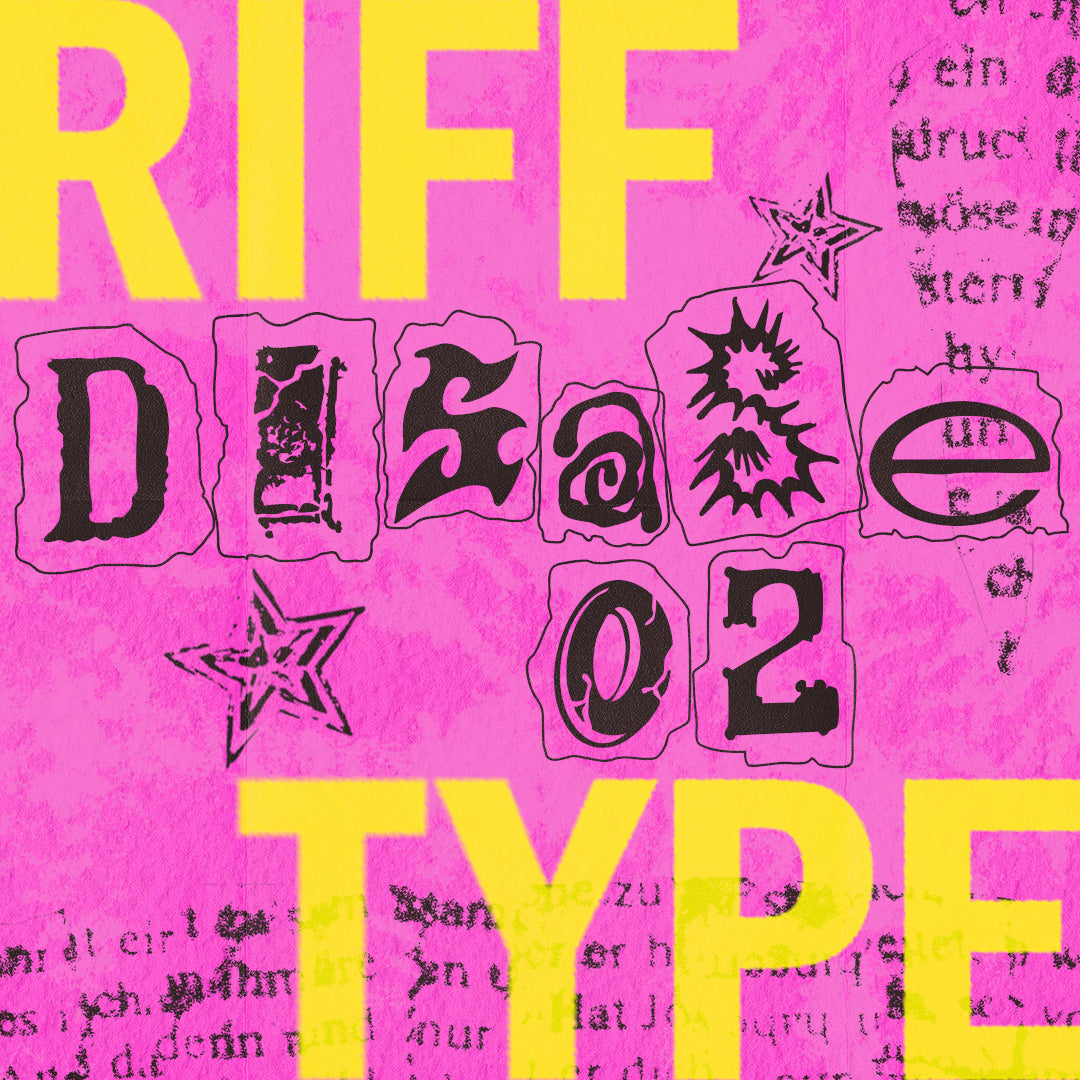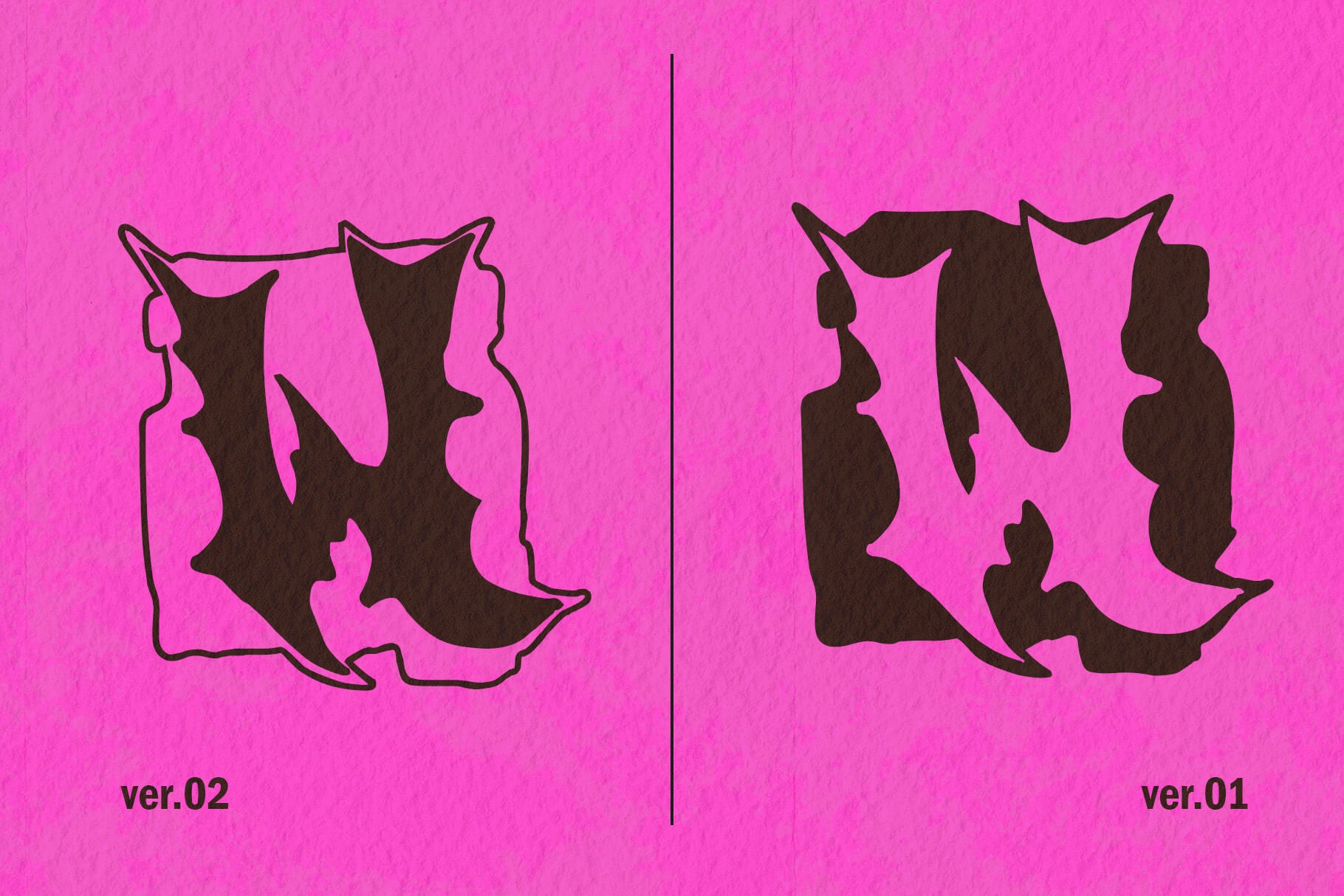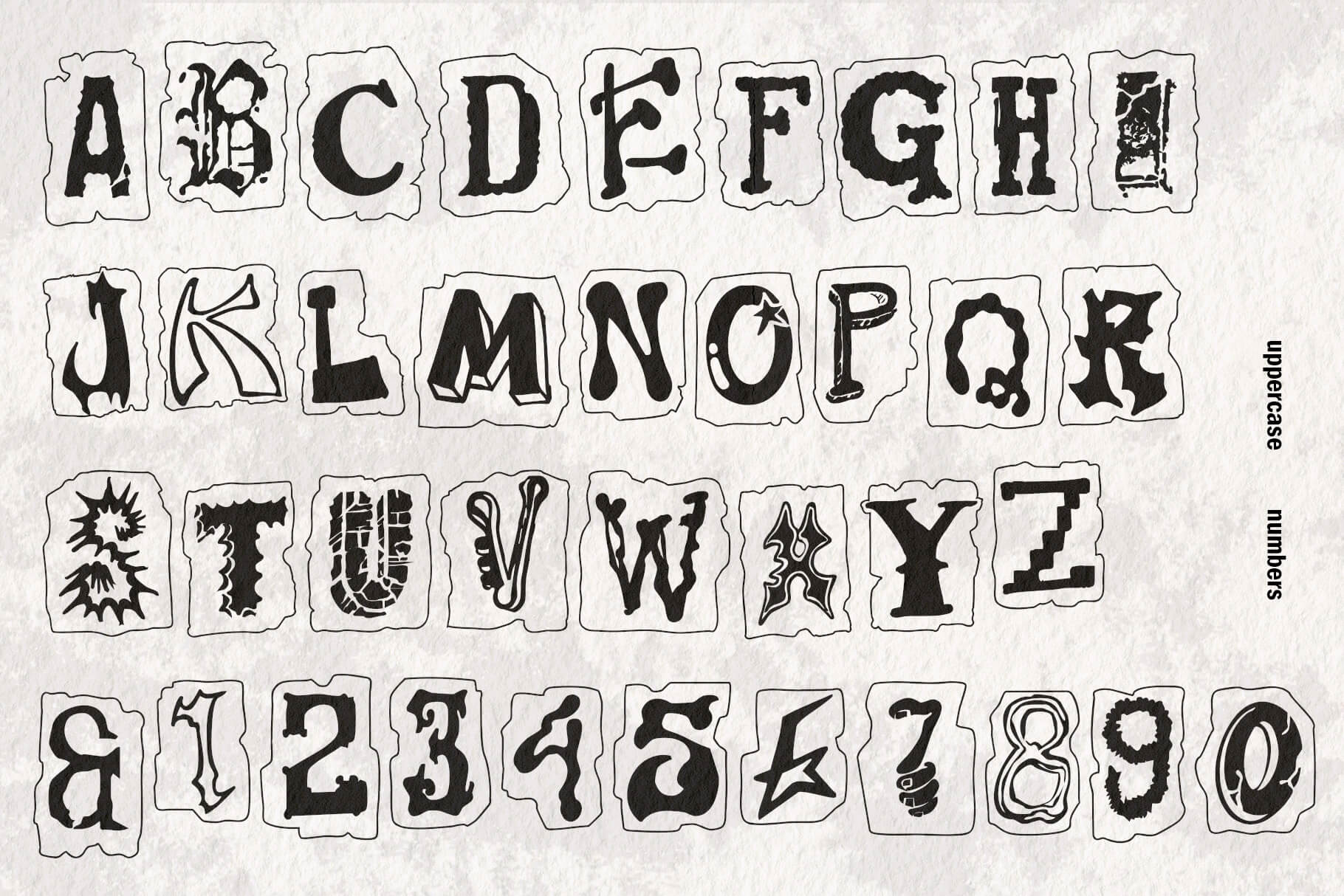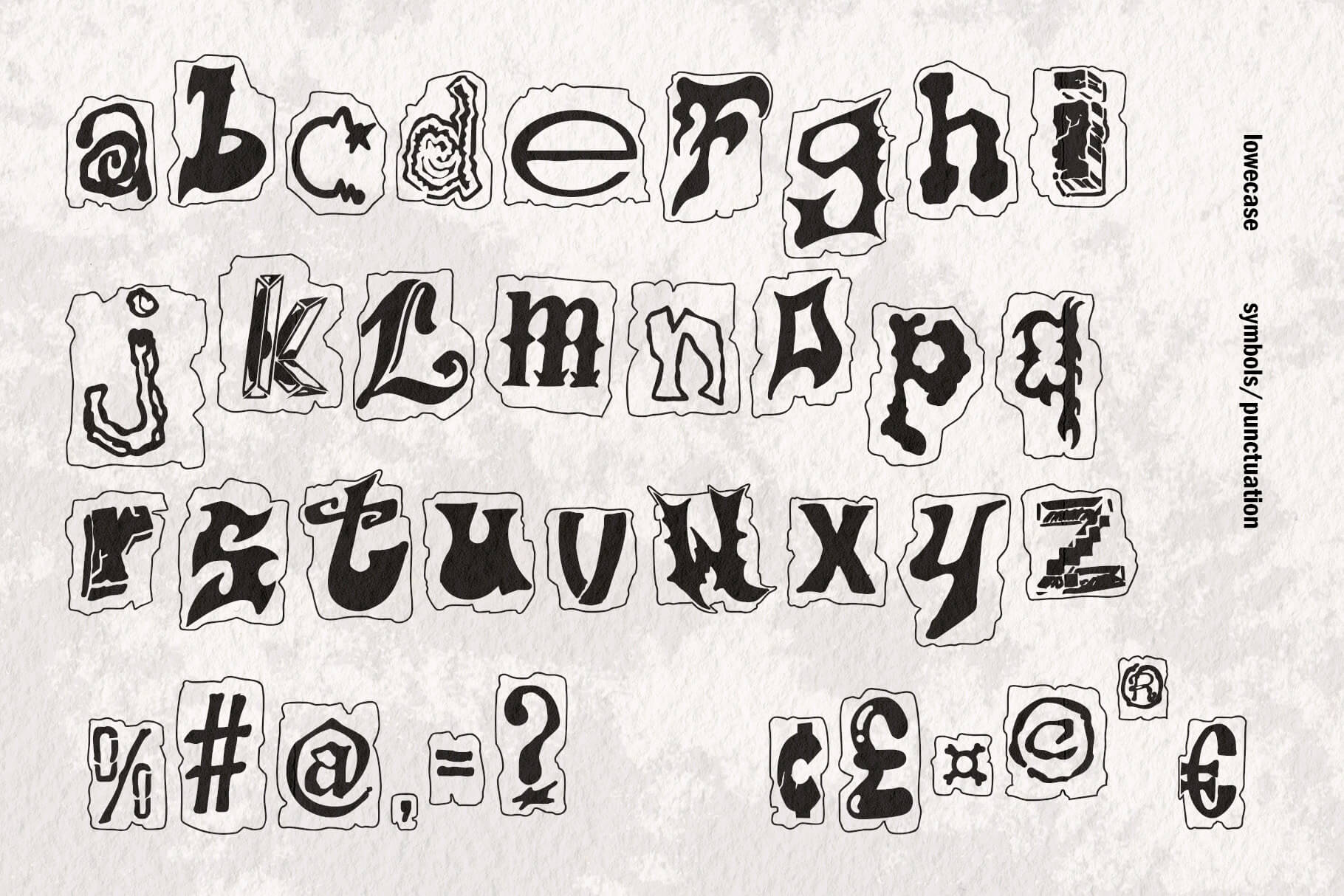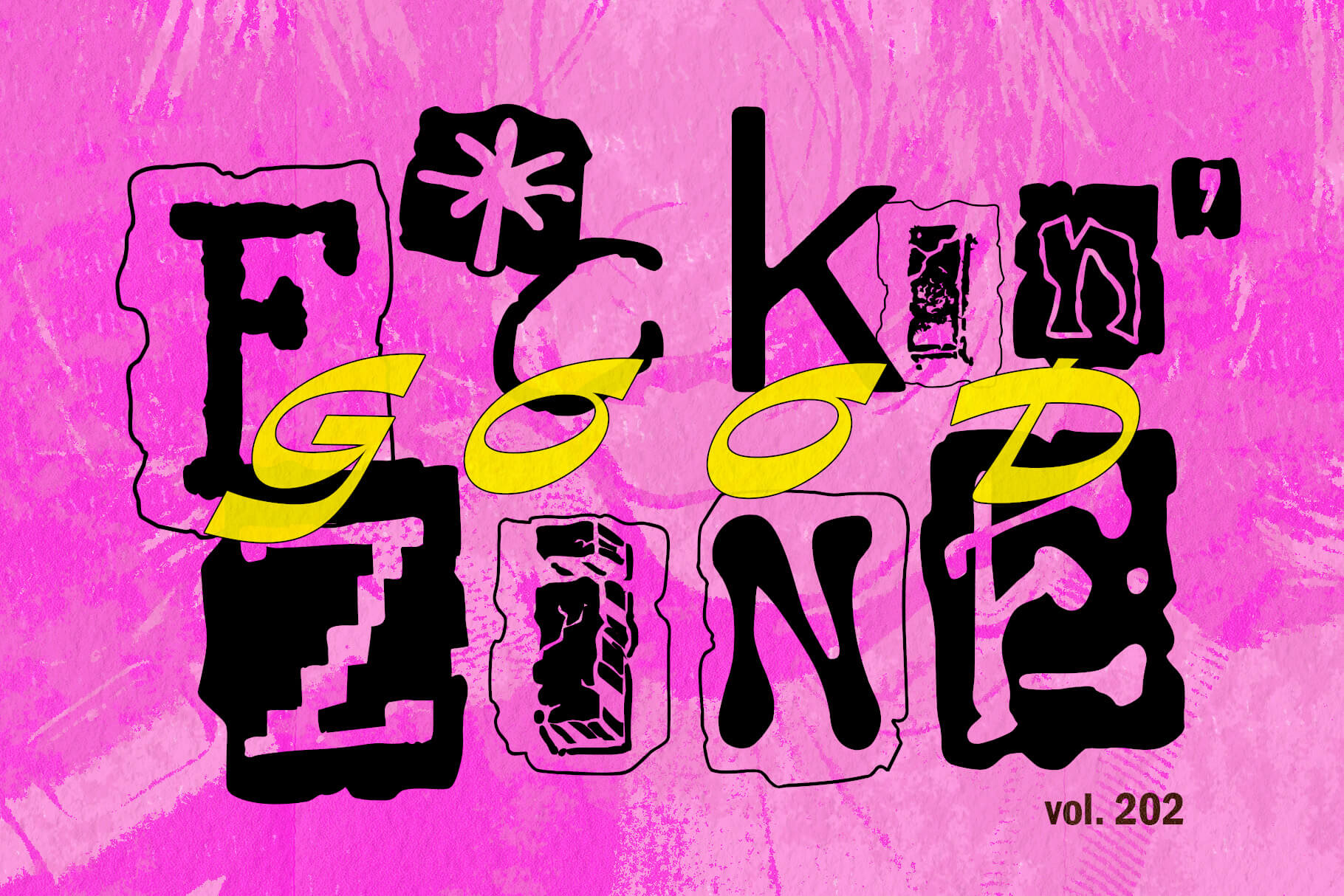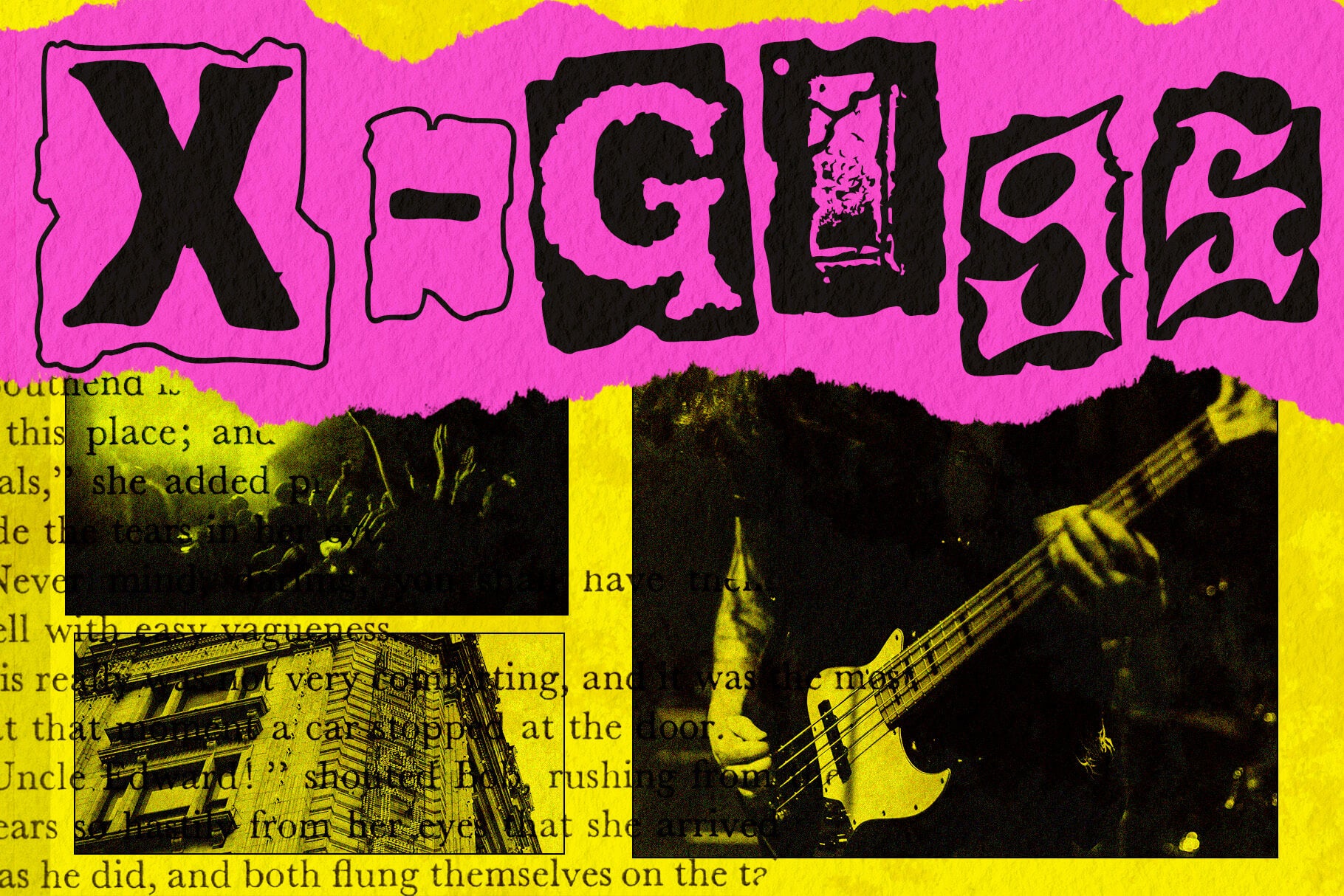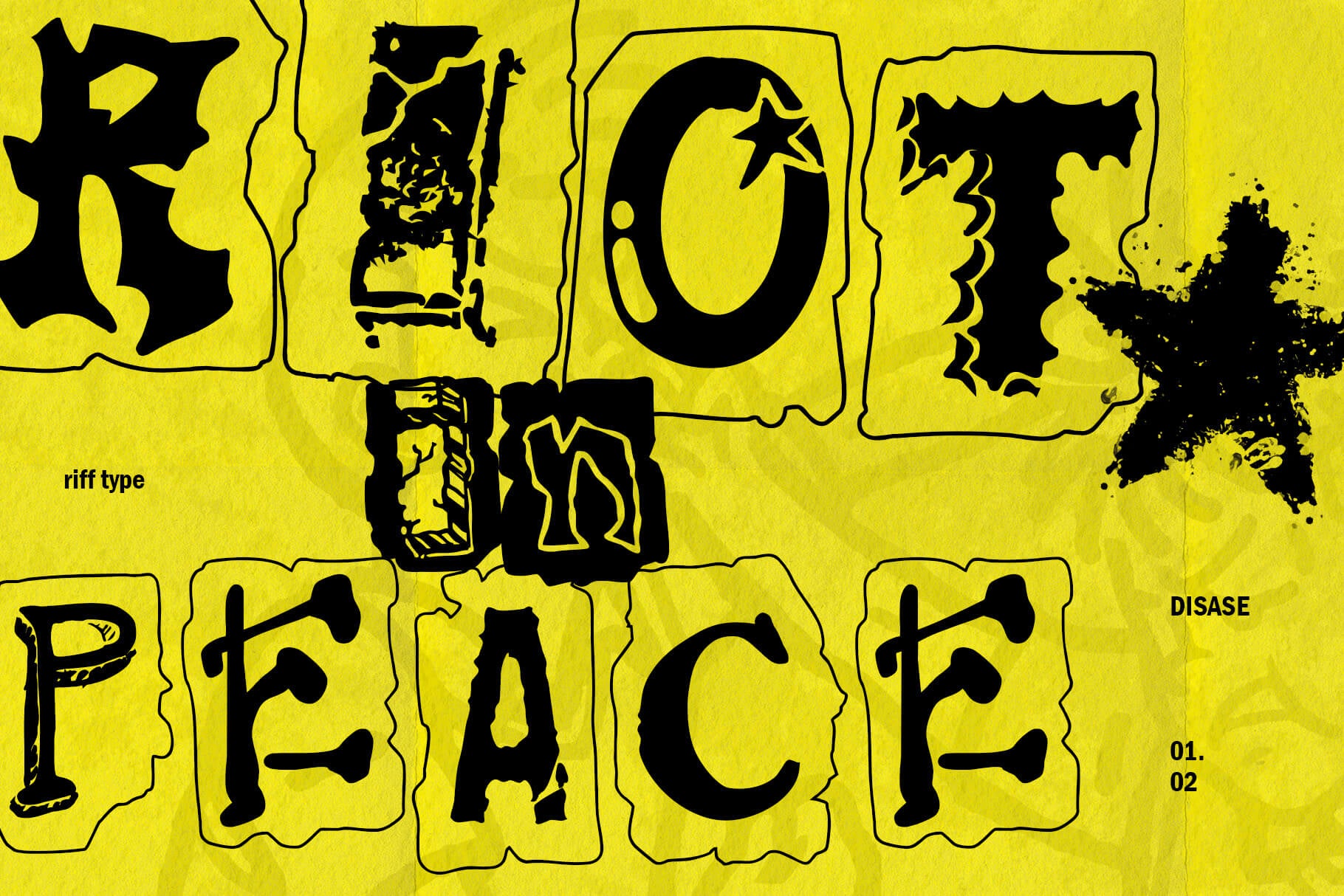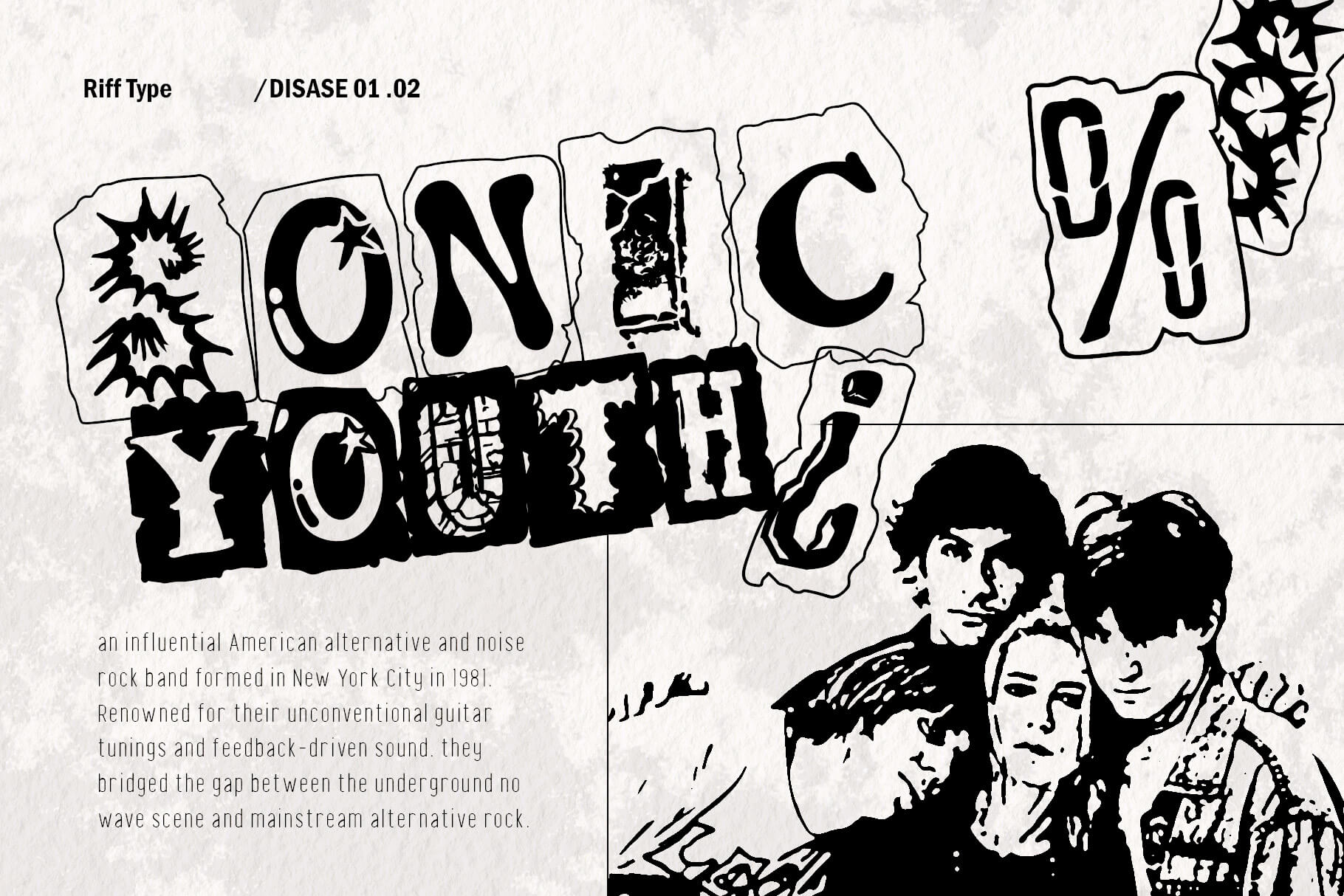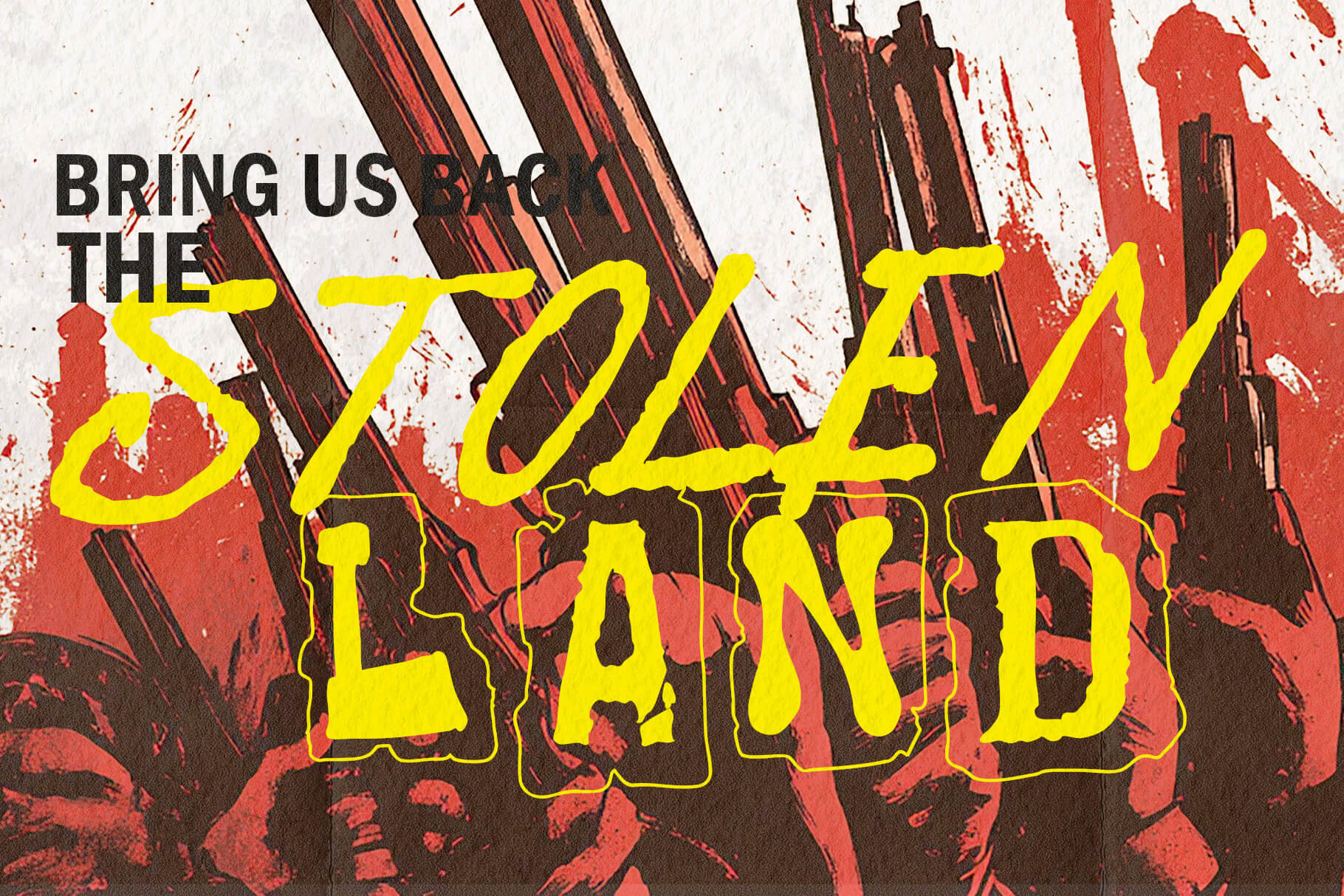
Disase v.02 - Punk Collage Font
Disase is back with an exciting new update! If you loved the raw, heavy energy of our first release, DISASE .02 strips away the solid black blocks to introduce a cleaner, yet equally unhinged line-art outline version.
In this .02 update, the jagged, torn paper edges that define the font are beautifully traced into a versatile outline border.
Disase v.02 - Punk Collage Font features a clean line-art outline design, maintaining the jagged, torn paper edges from the original version. This update offers a versatile outline border for a unique aesthetic.